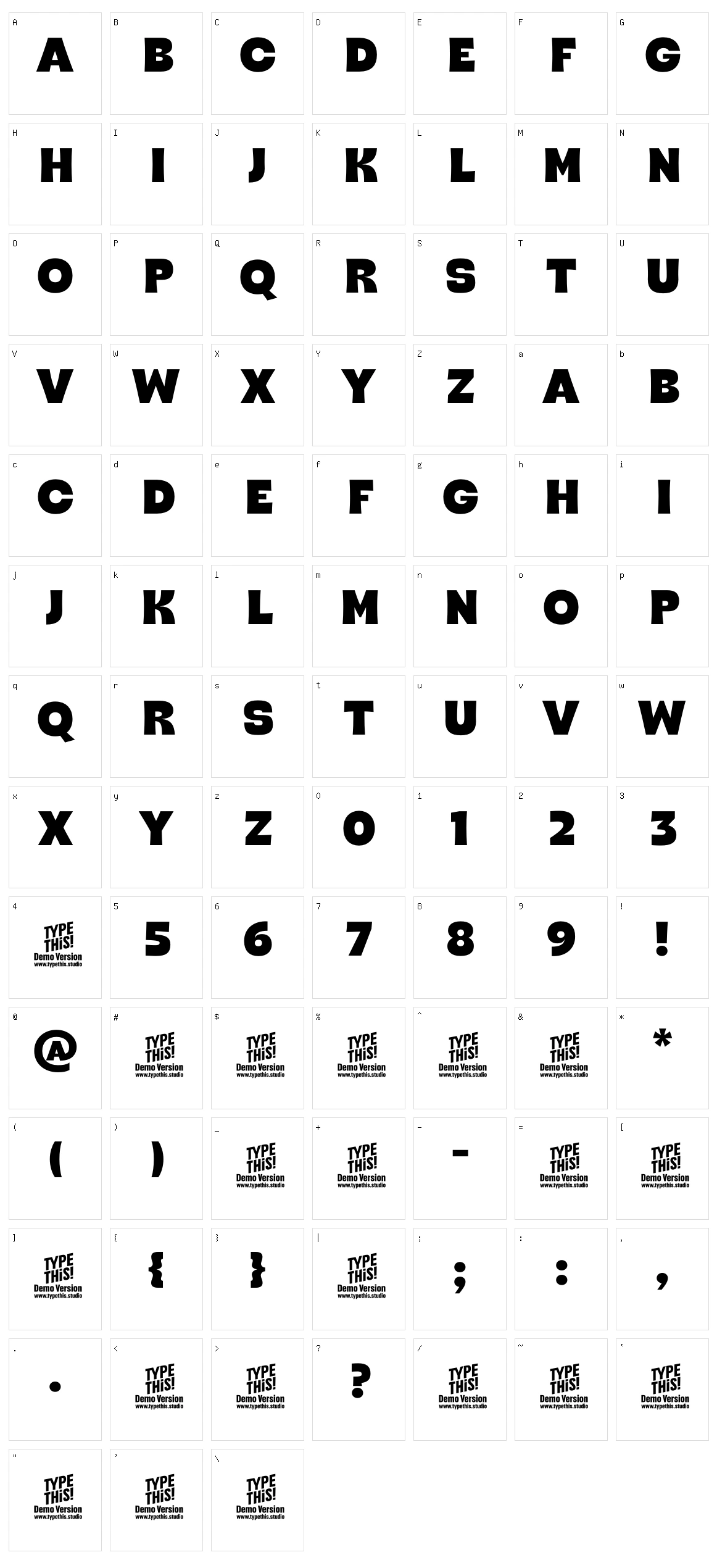
The free font Captoon ES is carefully designed by Anita Jürgeleit, showcasing a thoughtful balance of creativity and usability and falls under the Cartoon font style. When you download the ZIP file, it contains only 8.45 KB of font files, making it lightweight and quick to download. Please review the license details below to understand permitted usage and distribution rights. If license information is not available, we recommend using this font for personal projects only or contacting the author directly for commercial usage permissions.